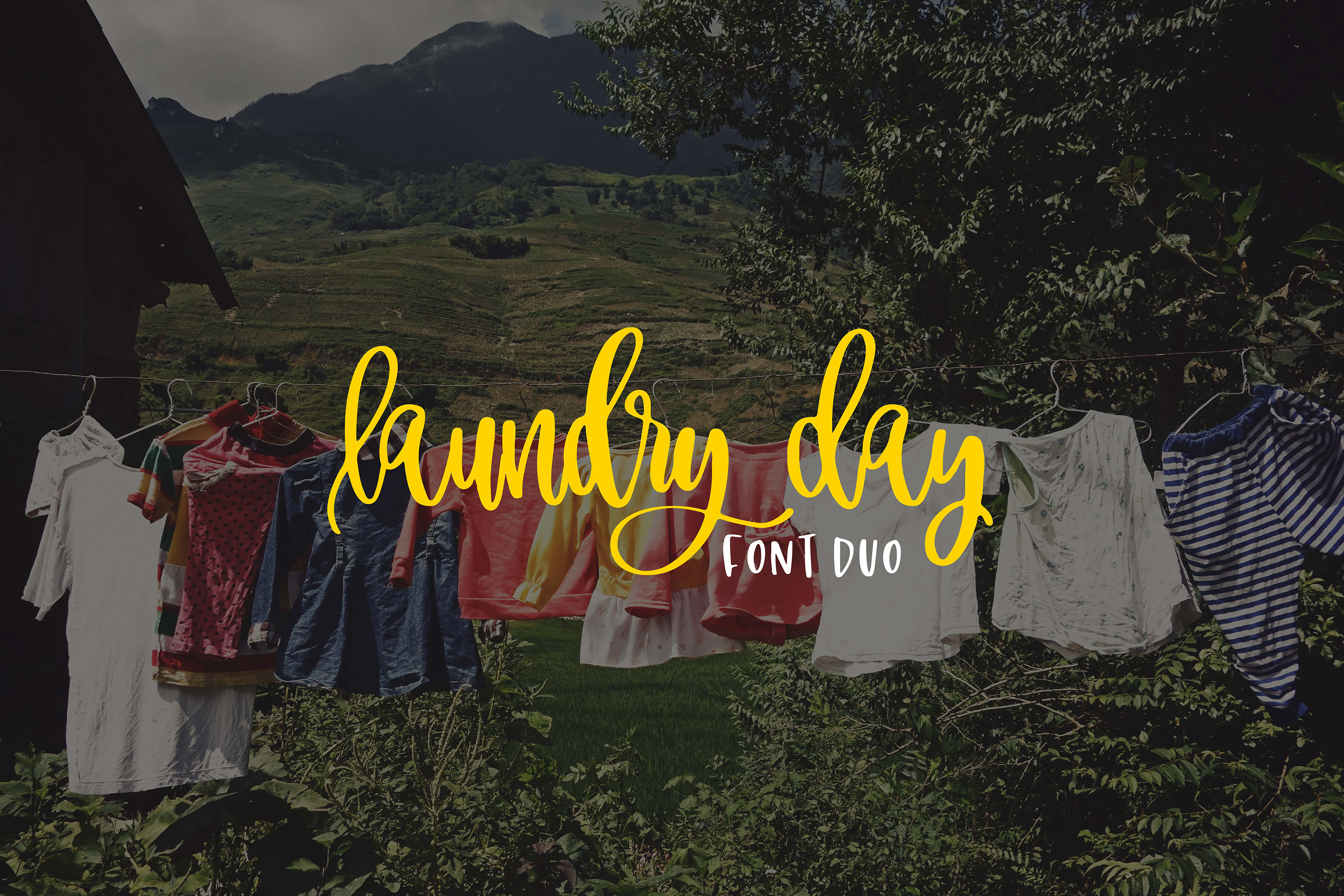
Laundry Day Font Duo
Quirky script with a coordinating small caps print to create unique custom designs! Laundry day is a handlettered font to give your projects that hand lettered feel!